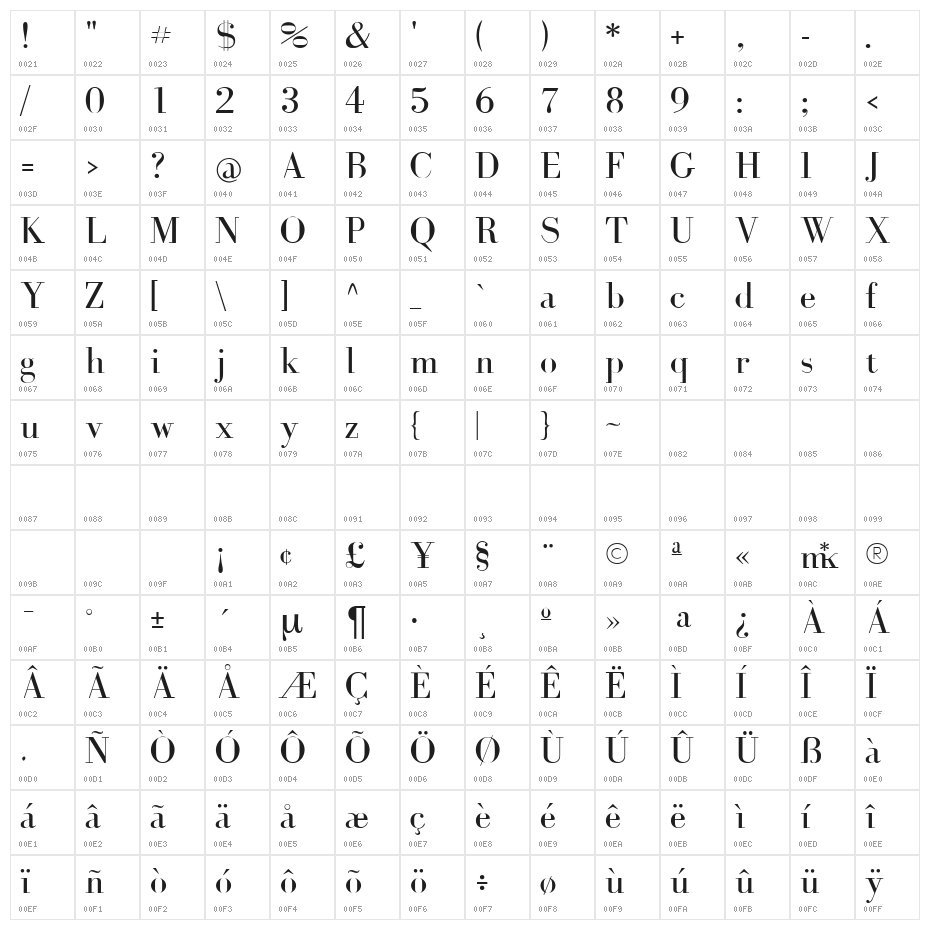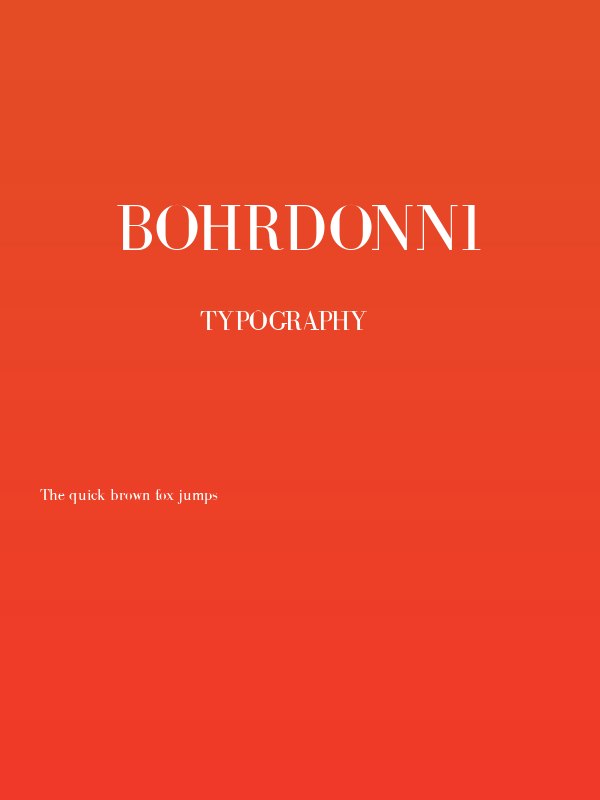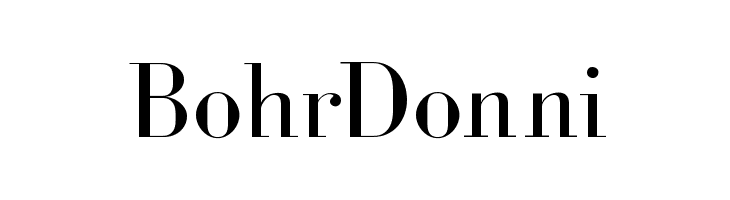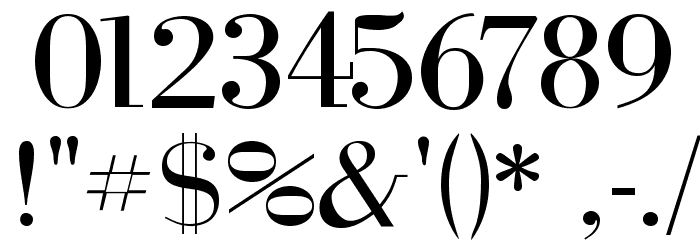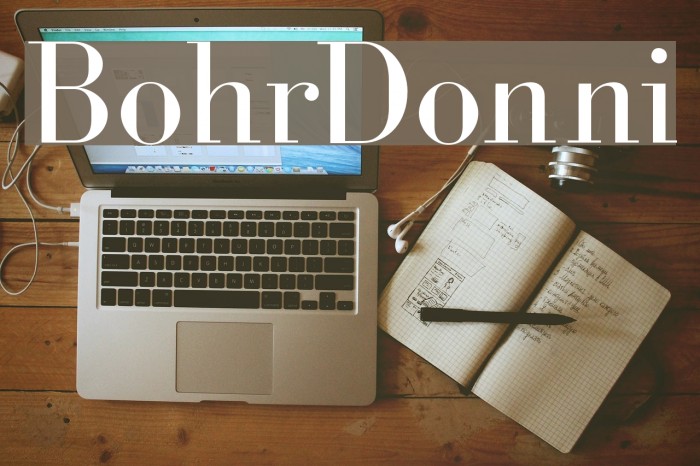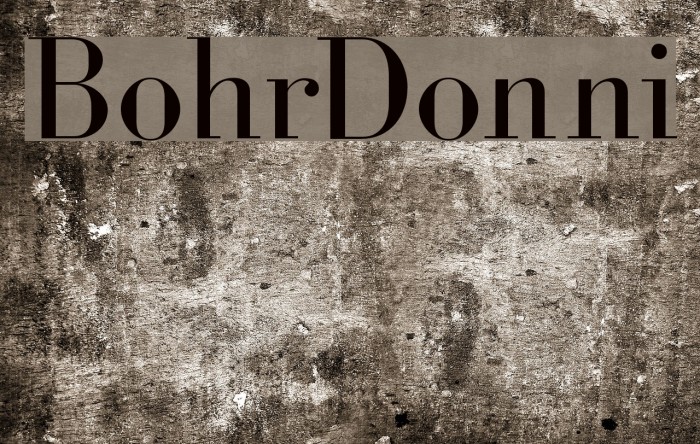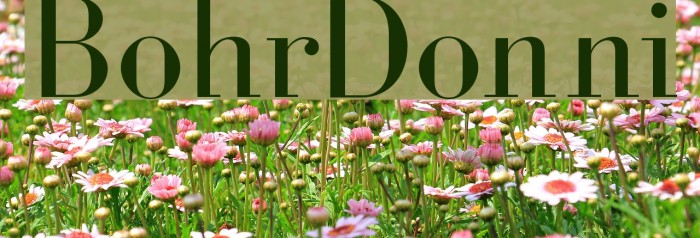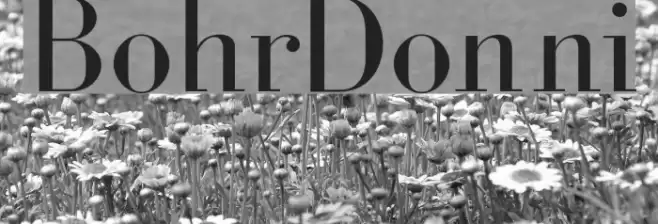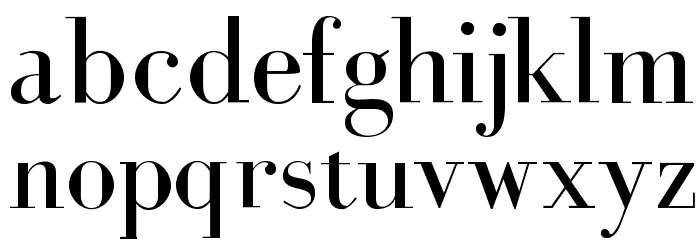
BohrDonni Font
BohrDonni Description
This font exudes a sophisticated and elegant style, characterized by its high contrast between thick and thin strokes. The serifs are sharp and pronounced, giving it a classic yet modern appeal. The uppercase letters are tall and commanding, while the lowercase letters maintain a balanced and harmonious flow. The numerals are distinct and bold, ensuring clarity and readability. Special characters are crafted with precision, adding to the font's versatility. Overall, this font is ideal for projects that require a touch of refinement and class.
| Overall Style | Classic |
| Proposed Projects | Ideal for luxury branding, editorial design, wedding invitations, and high-end product packaging. |